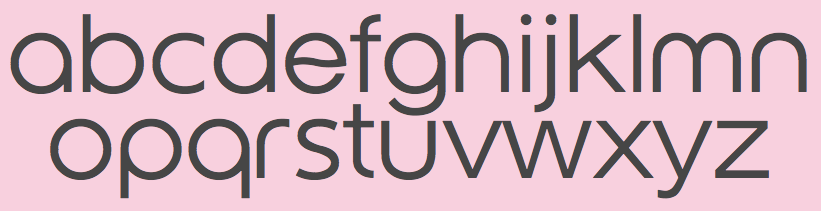
Along with its keen features, vast languages support, and attractive layout that font family is ideal for any unique designing approach. Web pepsi font is a mix of serif and sans serif font. 400 (ttf) publisher / designer name.
So it makes a perfect family. The typeface is purely derived from the logo of “pepsi”. Along with its keen features, vast languages support, and attractive layout that font family is ideal for any unique designing approach.
Web Pepsi Font Is A Mix Of Serif And Sans Serif Font.
Web the logo used during that period featured the pepsi wordmark in a sans serif font in slanted style with a red stripe and its iconic swirls in white, red and blue beneath it. 1 style available download zip (6 kb) ! Pepsi light version 100 december 11 1992 initial release font font family name.